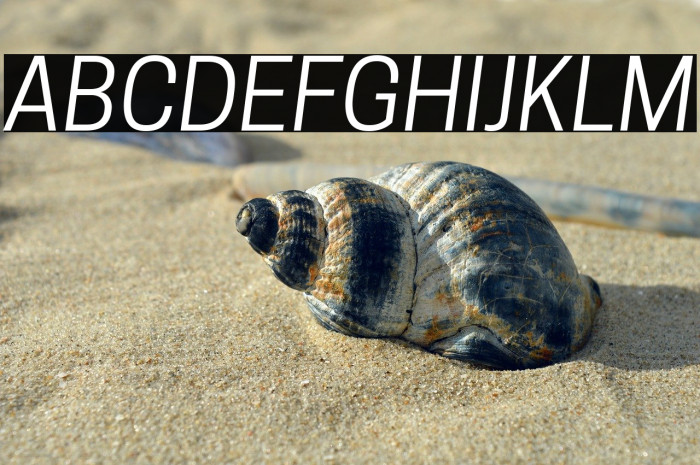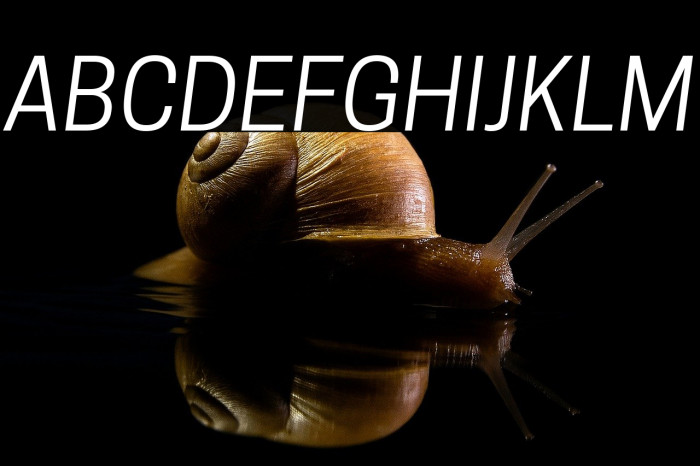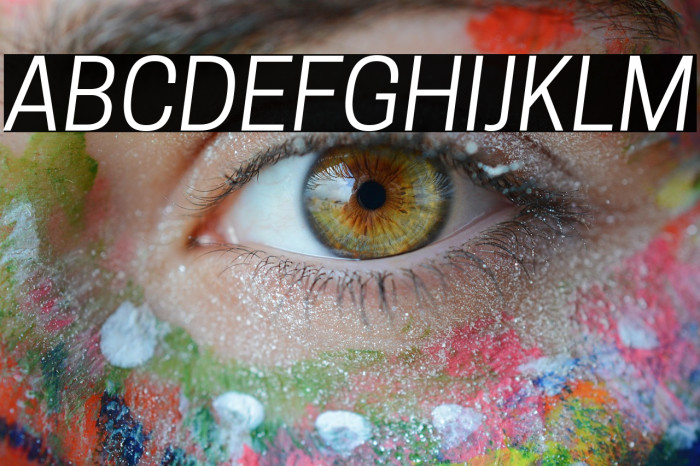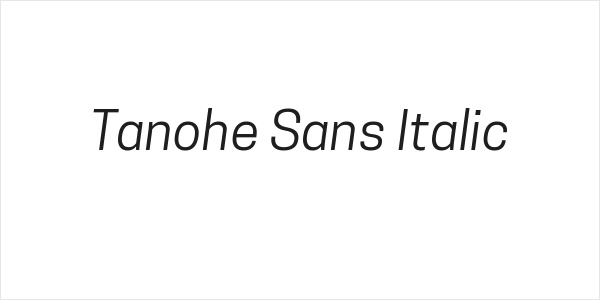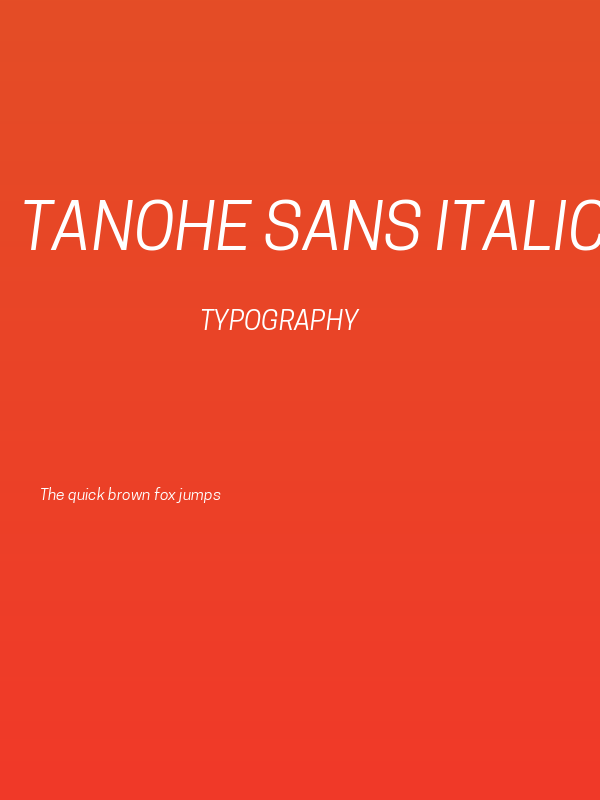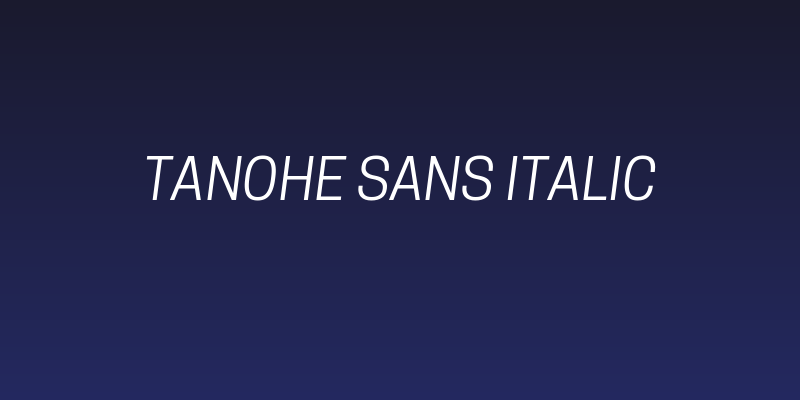
Tanohe Sans Italic Font
Tanohe Sans Italic Description
This font features a clean and modern sans-serif design with a subtle italic slant, giving it a sleek and dynamic appearance. The characters are well-proportioned, with a consistent stroke width that maintains readability across various sizes. The uppercase letters are bold and assertive, while the lowercase letters offer a softer, more approachable feel. The numerals are clear and distinct, making them suitable for both text and numerical data. Special characters are designed with precision, ensuring they integrate seamlessly with the rest of the font. Overall, this font exudes a contemporary and professional vibe, making it versatile for numerous applications.
| Proposed Projects | Ideal for branding, editorial design, web design, and corporate materials. |